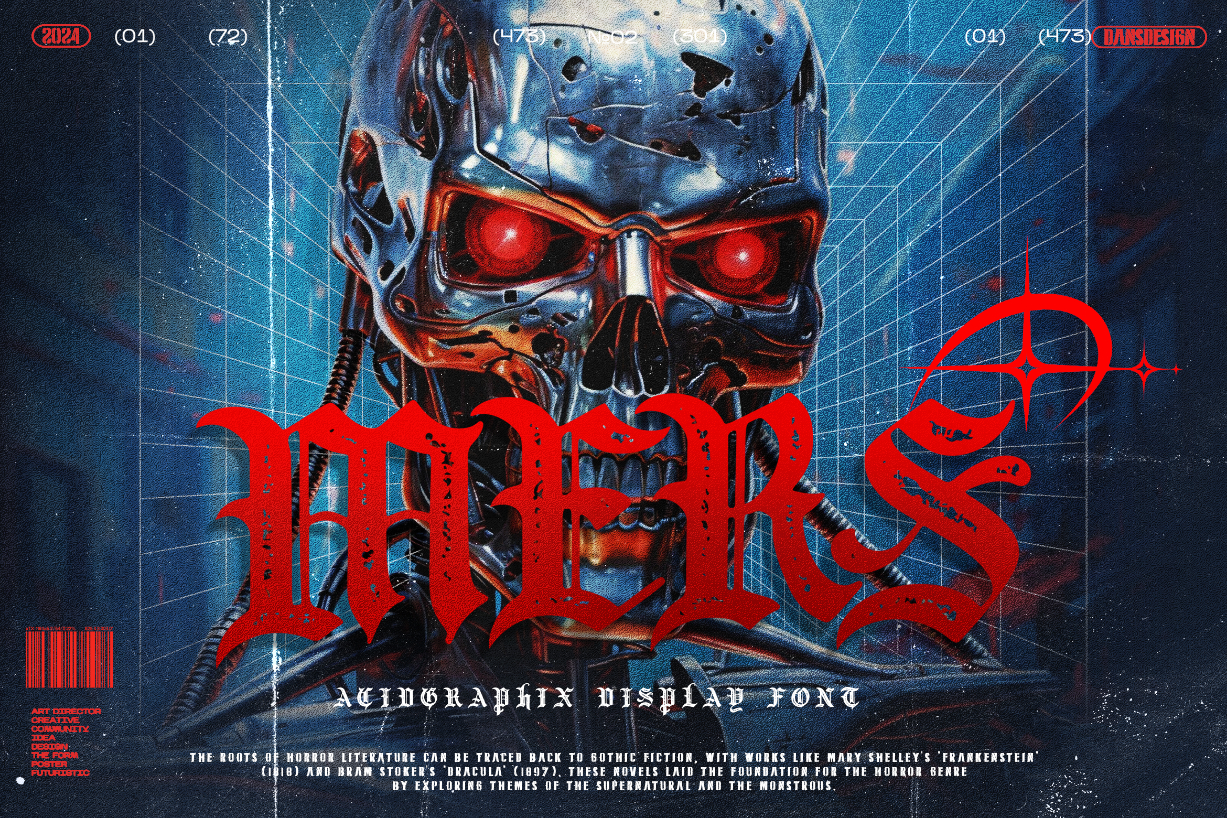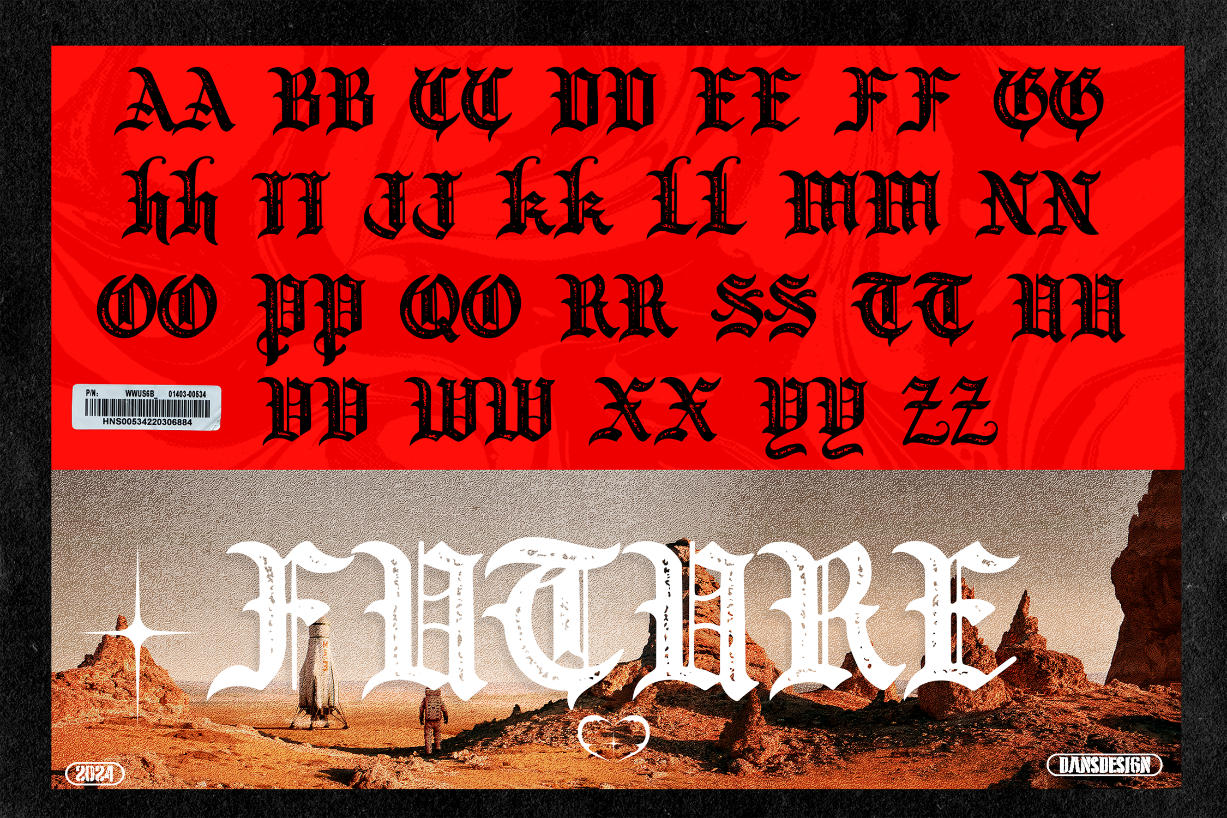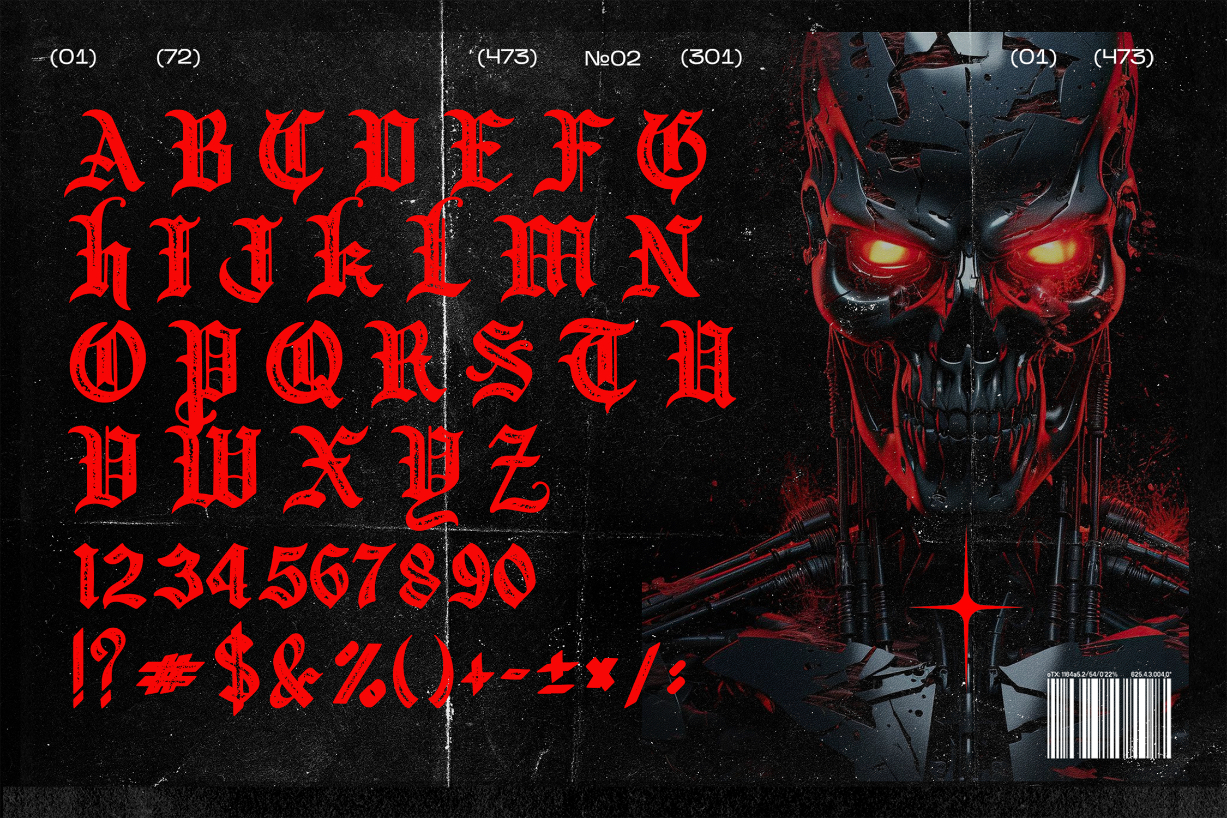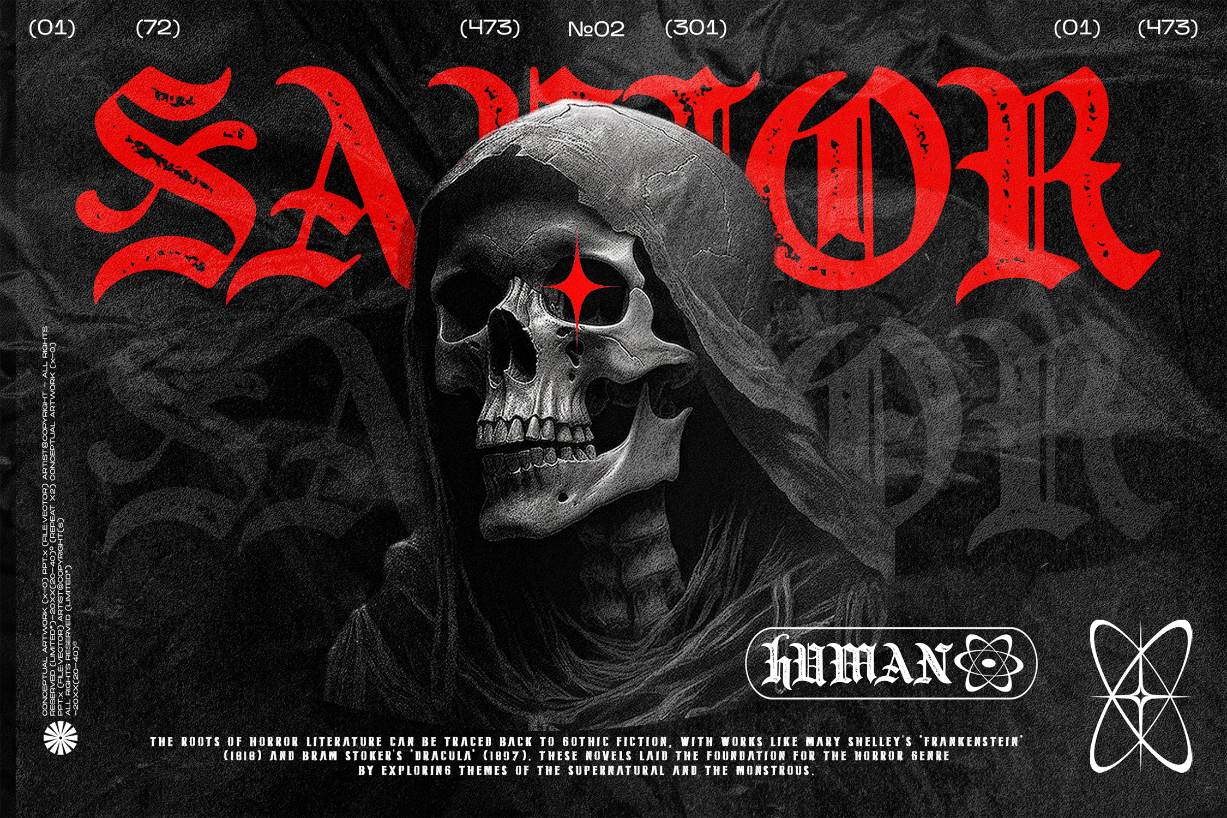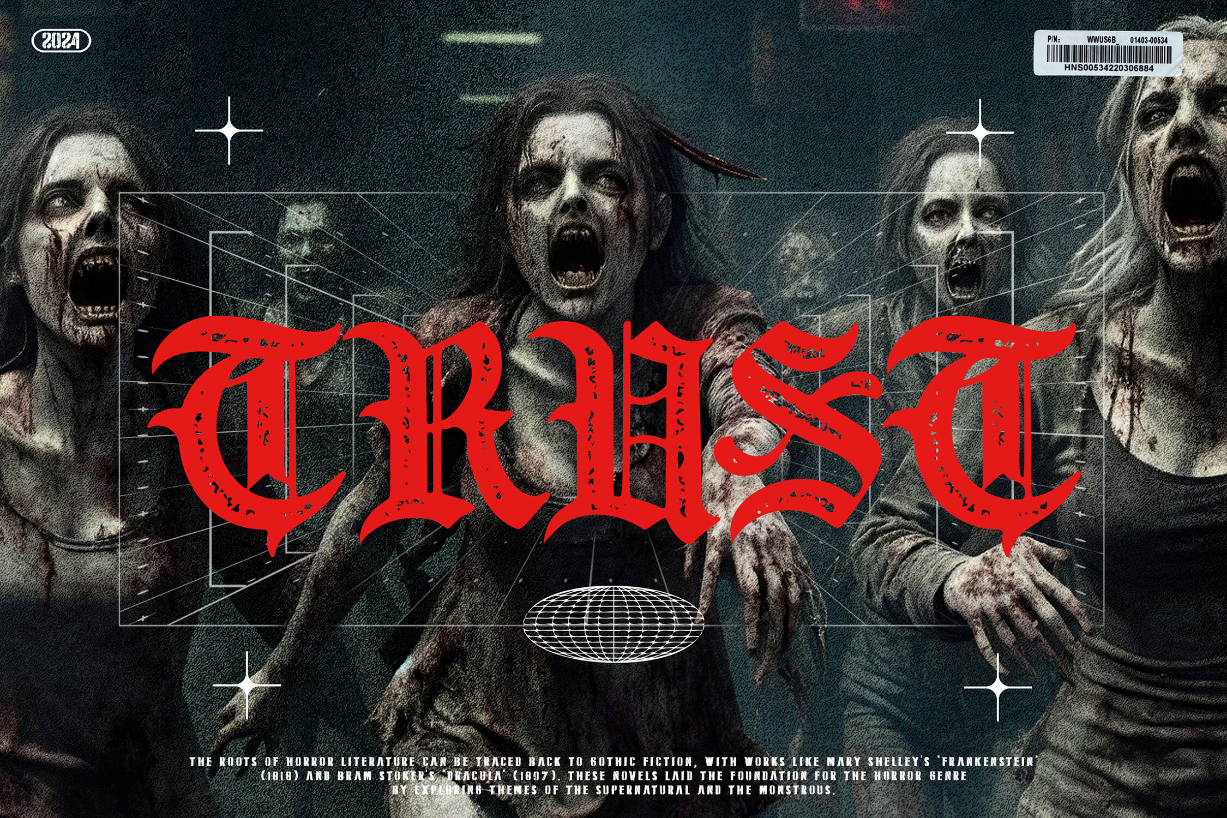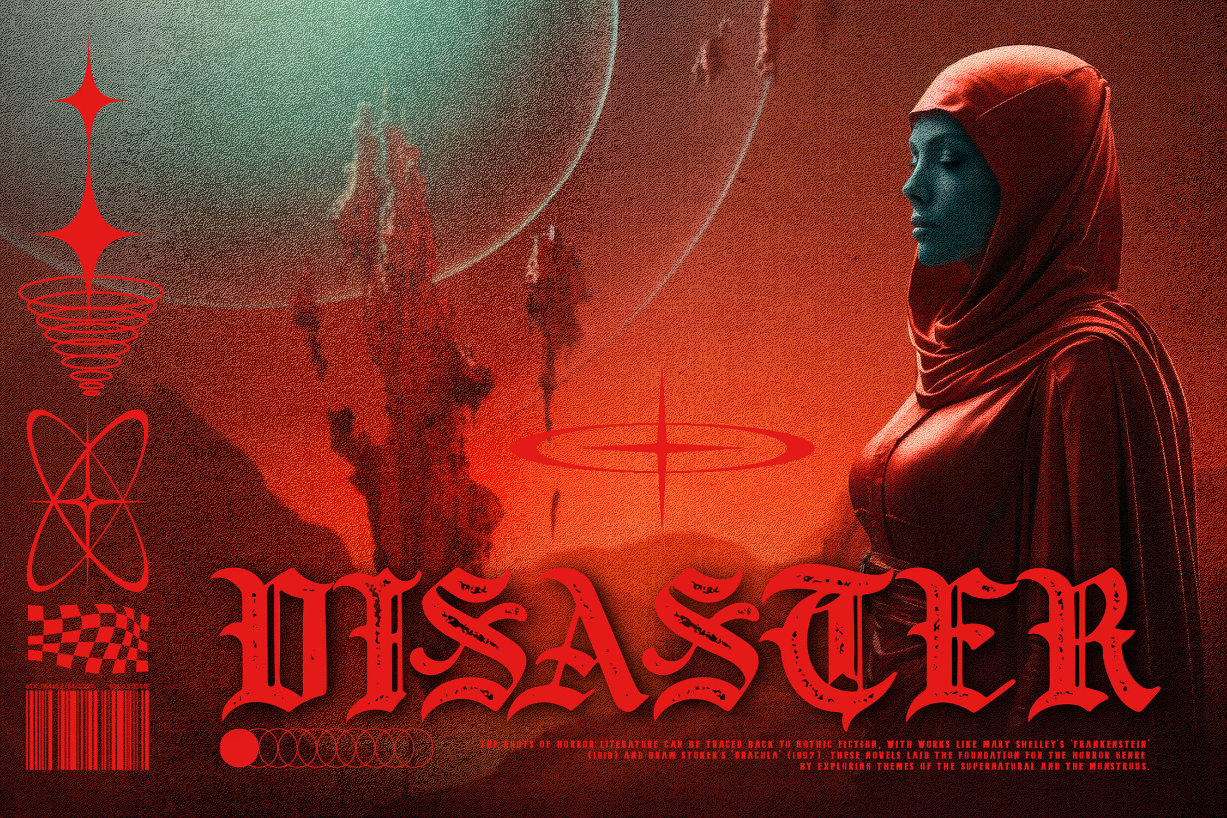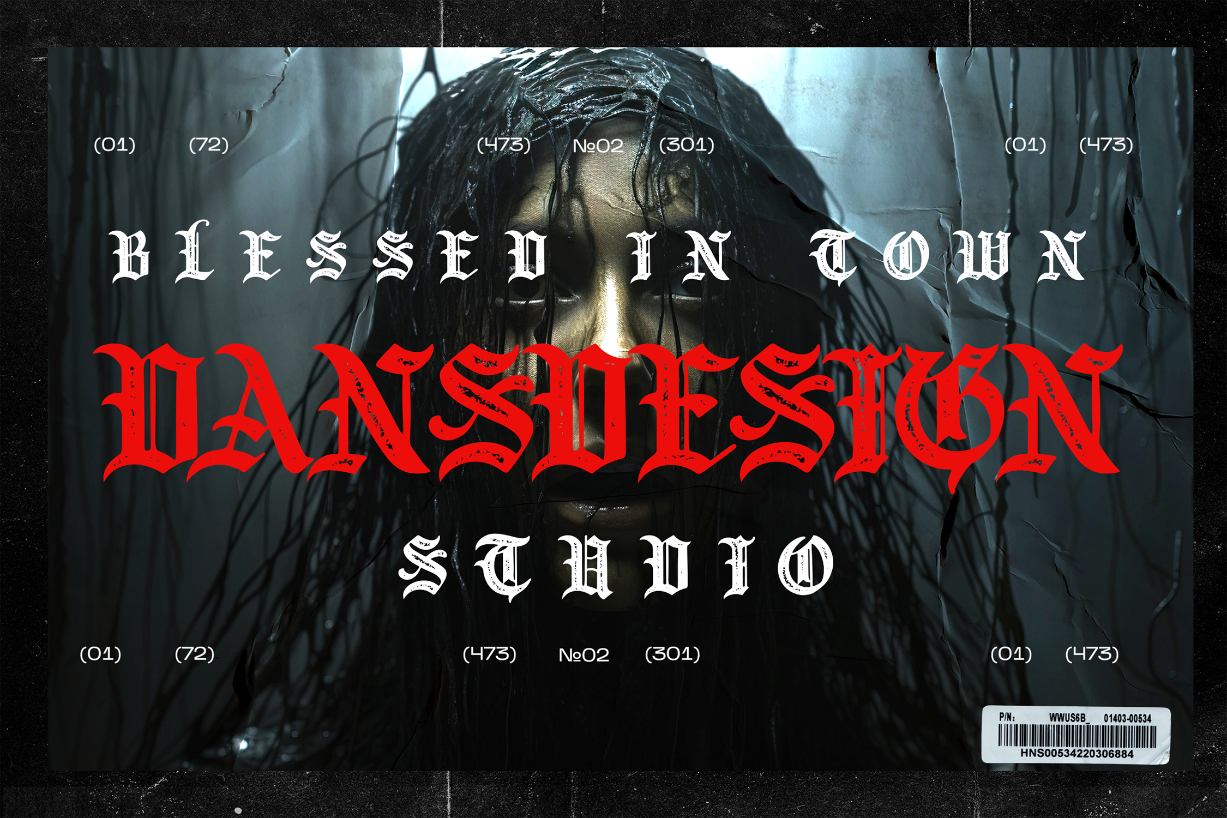
Mers Font
About Mers Font
MERS Metal Gothic Acidgraphix Futurisme is a bold and futuristic display font. With its edgy design and sharp lines, it adds a modern touch to any project. Perfect for posters, logos, and graphic designs that demand attention, MERS Metal Gothic Acidgraphix Futurisme brings a dynamic and energetic vibe to your typography.